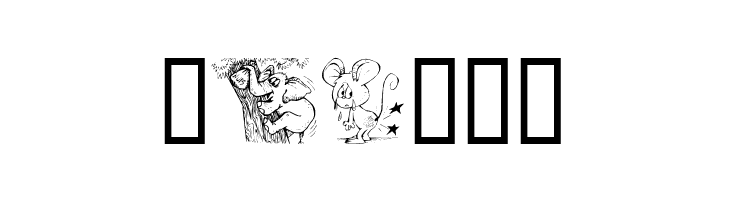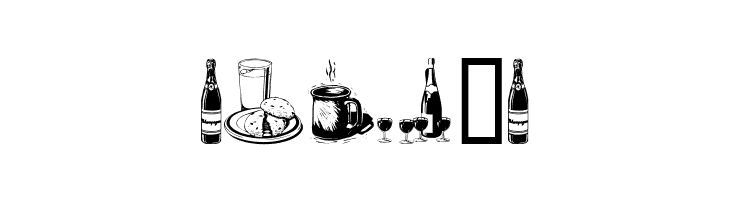
• Ripplemere ThinItalic
A thin, italicized font with outlined characters and a modern, elegant style.
• Static Charge
A bold, zigzag-patterned font with an energetic and dynamic style.
• Krazy Kritters
Cartoon animal illustrations form each character in a playful, decorative style.
• Drinks Various
A decorative dingbat font with assorted drink and beverage illustrations.
• Woven Brick outline
A decorative font with a woven brick outline, offering a textured and dimensional appearance.
• Llynfyrch Fwyrrdynn
A dynamic, handwritten font with angular, artistic strokes.
• Llynfyrch Fwyrrdynn SemiBold
A lively, handwritten script font with a dynamic and fluid style.
• Llynfyrch Fwyrrdynn Ouline
A playful, hand-drawn outline font with a whimsical and artistic style.
• Gembats 1
A collection of decorative geometric and abstract symbols.
• GemBats 2
A diverse collection of geometric and abstract symbols with bold, dynamic designs.